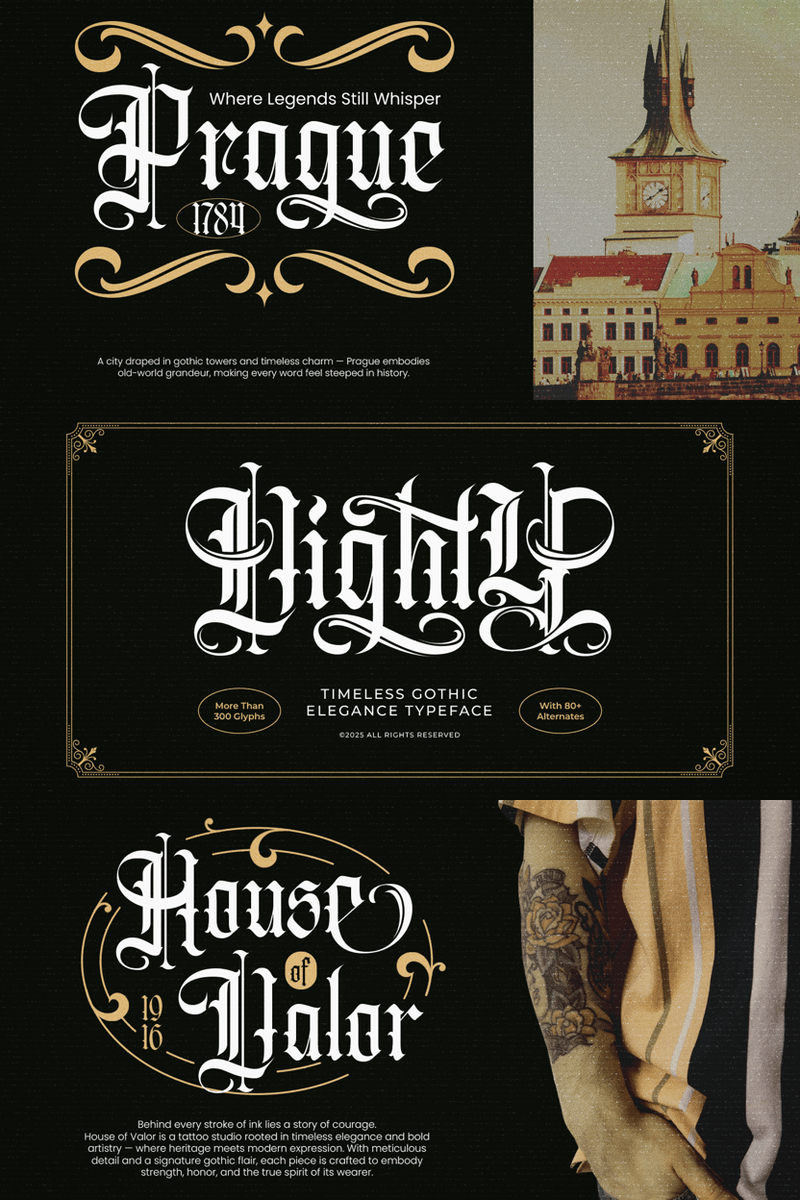
Vighty: Unlocking Your App's Inner Rebel for Unforgettable Mobile Stories
Hey there, pixel wizard. Yeah, you. Scrolling through endless sans-serifs, hoping something... more pops up? Something that really gets the vibe of your next killer mobile app? Well, consider the search over. I'm Vighty, and I'm not here to play nice.
I know, I know. The app world can feel a bit... uniform sometimes. Clean lines, minimalist layouts, safe choices. Don't get me wrong, 'clean' has its place, but there are moments your app needs to shout, not whisper. It needs to make a statement, cut through the noise, and leave a lasting impression that screams, "We're different." That's precisely where I slide in, a true Vighty font ready to shake things up.
Think of me as that cool, edgy friend your app's been missing. I'm the rebellious typography you grab when you're tired of blending in. My DNA is all about sharp angles, unapologetic presence, and a confidence that instantly elevates your mobile app design. But here’s the kicker: I bring that audacious attitude without sacrificing clarity. What’s the point of being a rebel if nobody can understand your manifesto, right? I'm crafted to ensure your message is always front and center, even when it's breaking all the traditional rules.
My special sauce? I solve the "vanilla app syndrome." In a digital landscape saturated with similar aesthetics, I give your app branding a unique voice, an immediate personality that resonates with users who crave authenticity and boldness. I'm not just a pretty face; I'm a statement.
Vighty: Don't Just Design. Ignite.
So, where do I really shine?* Headlines and Titles: Imagine your app's main headlines or feature titles. With me, they won't just inform; they'll command attention and set an immediate tone.* Onboarding & Feature Highlights: Make that crucial first impression count. Use me for powerful, memorable onboarding sequences or to highlight new, game-changing features.* Niche & Disruptive Apps: Launching a disruptive fintech platform, an indie gaming hub, or a community for underground artists? I'm your visual mic drop, perfectly capturing that edgy font for apps aesthetic.* In-App Editorial Content: For those "latest news" sections, "artist spotlights," or "deep dive" articles within your app, I bring a raw, authentic energy, ensuring your content doesn't just get read, it gets felt. I add that much-needed character to your UI/UX font choices.* Marketing Material & CTAs: Anywhere you need to grab attention fast – "Download Now," "Explore More," or social sharing graphics – I'll make sure your call to action isn't just seen, it's noticed.